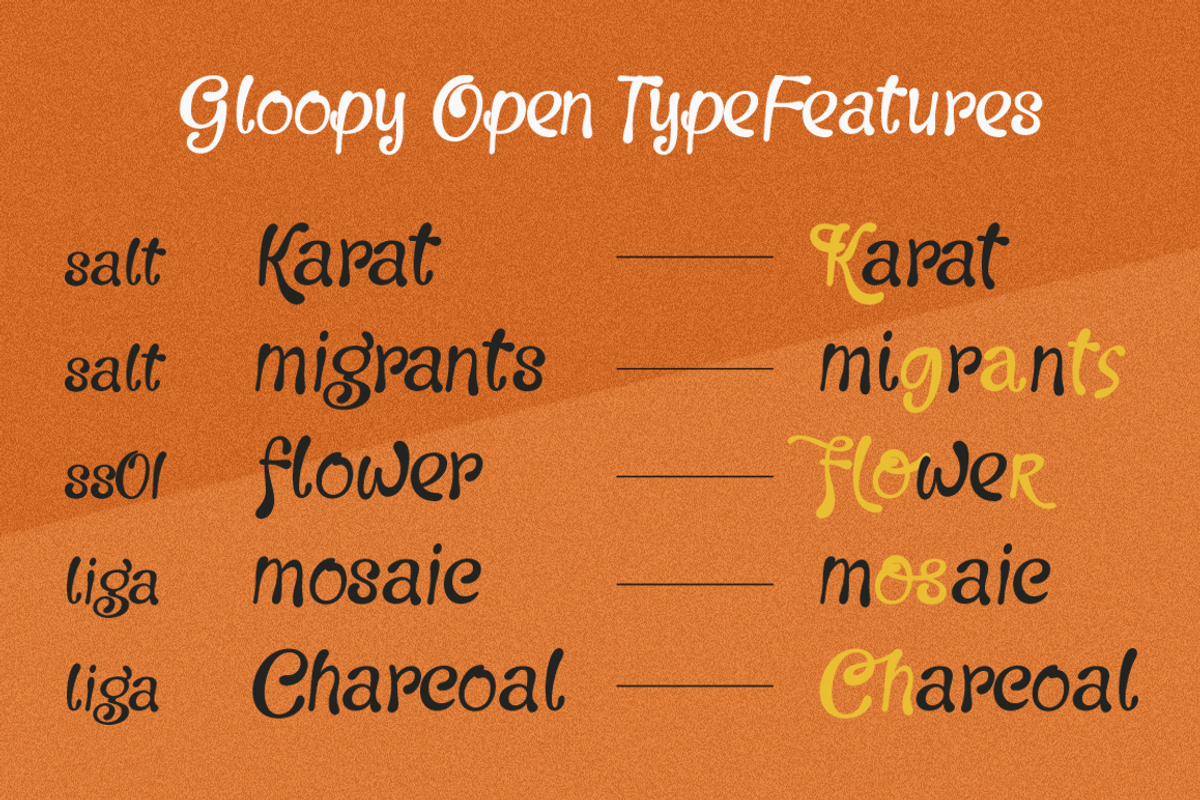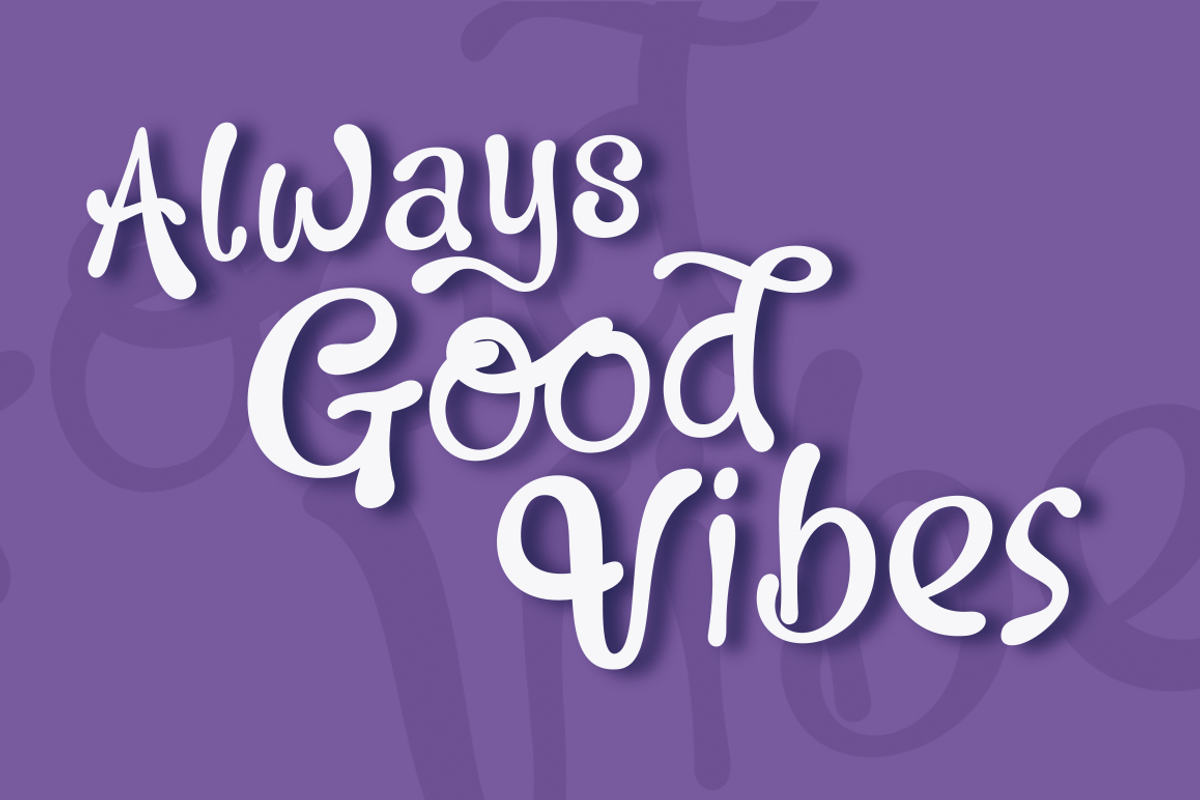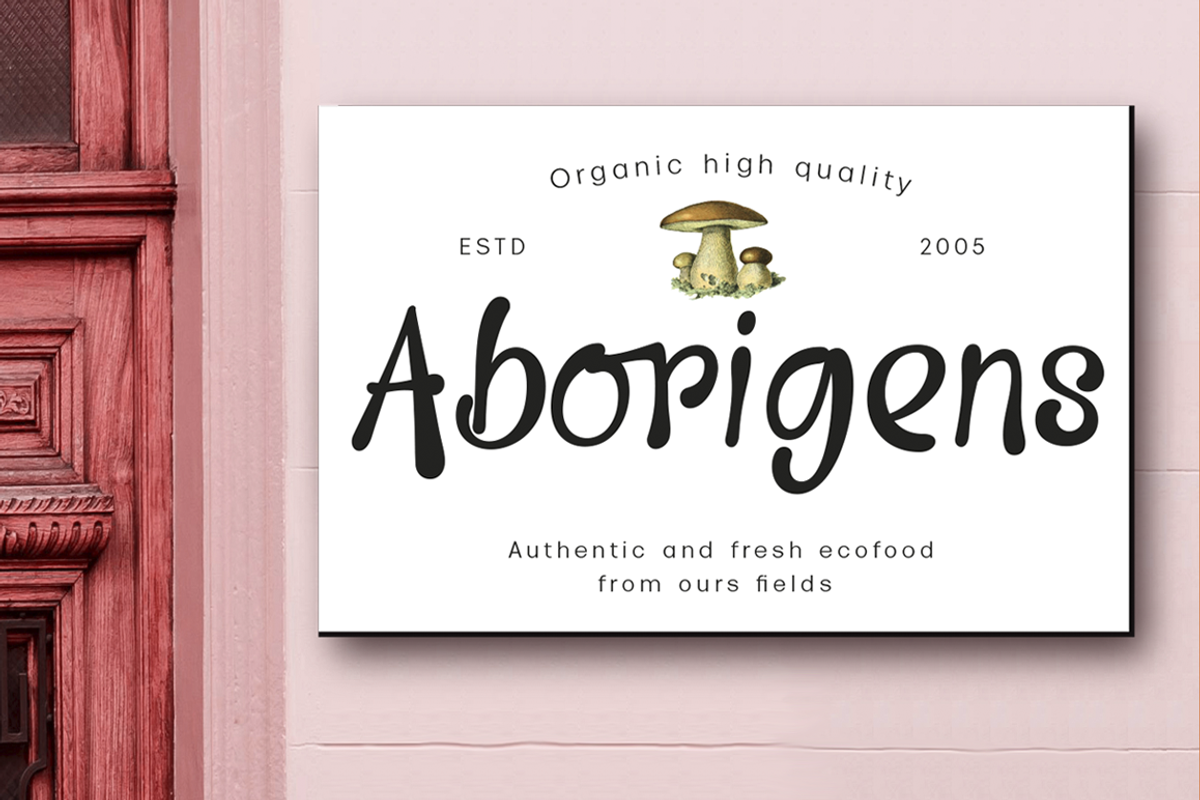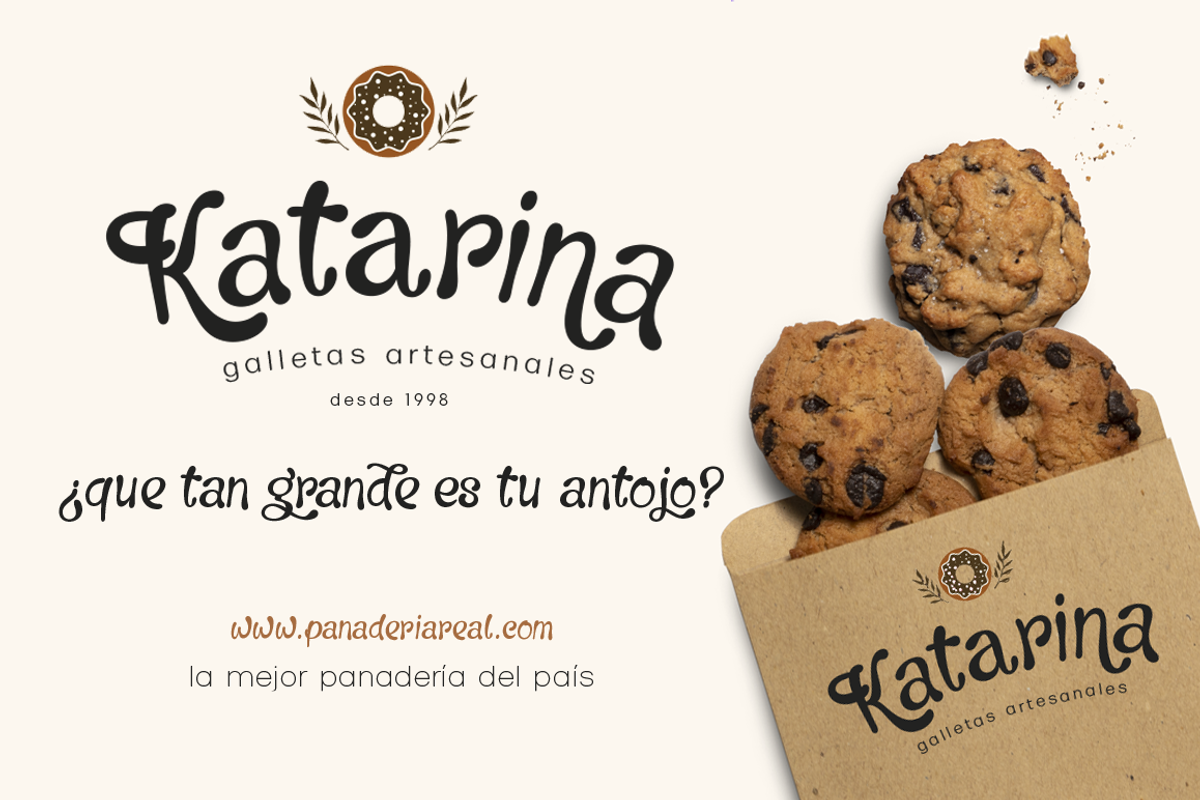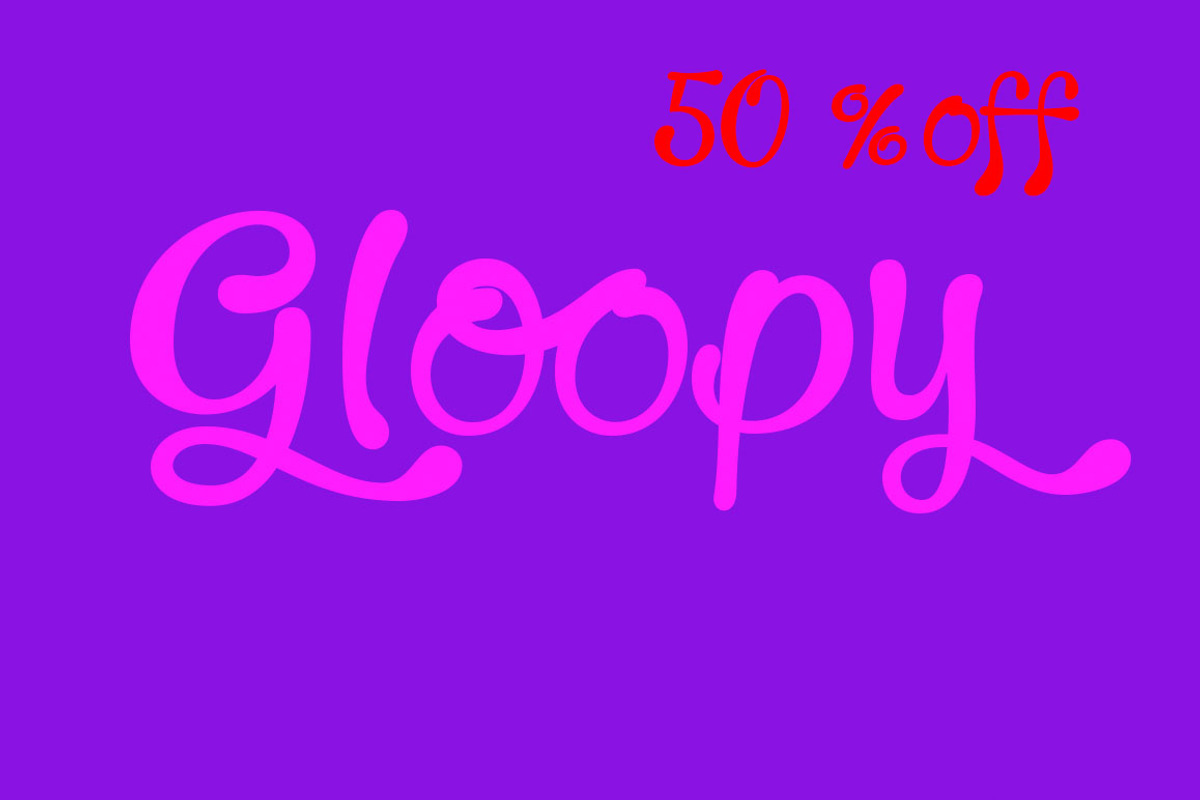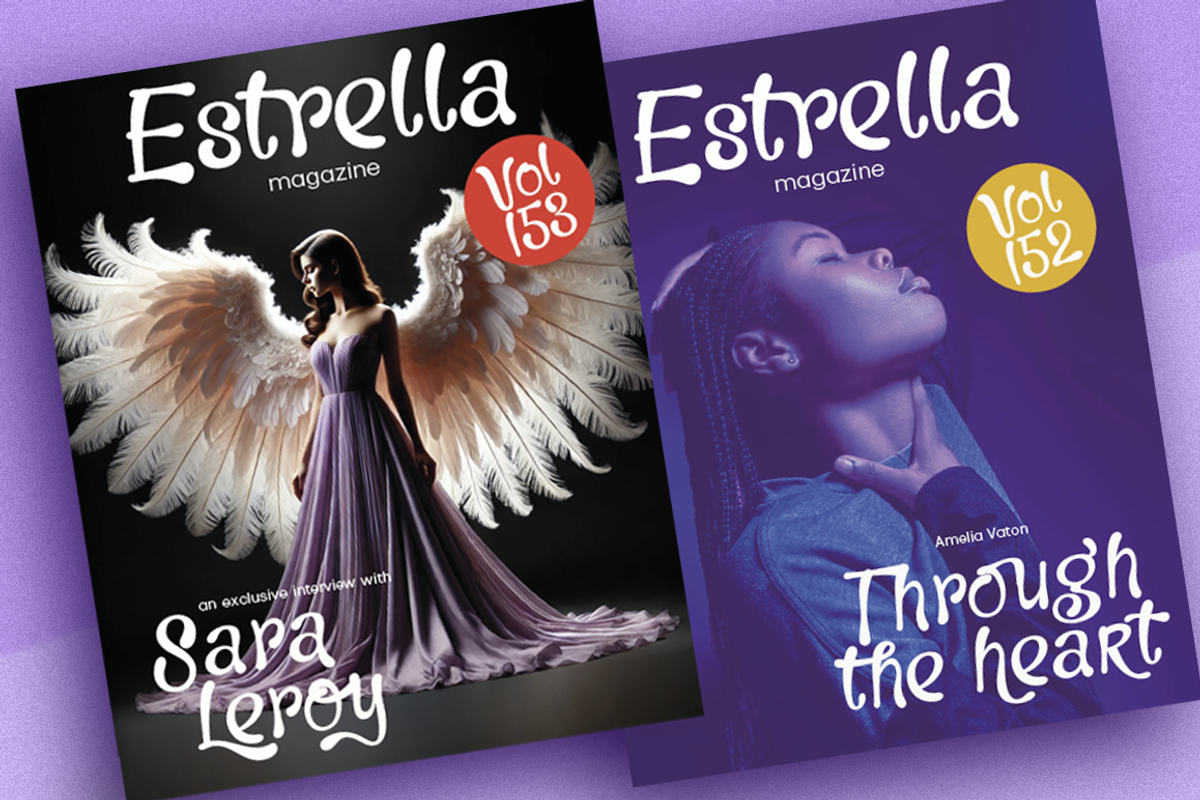
Gloopy
Gloopy is a handwritten font that looks like it was created with a brush dipped in fresh ink. What's most striking are those playful little touches at the end of each stroke, as if the ink had decided to throw its own party and spill out in a creative way. It's a typeface that radiates fun and spontaneity, perfect for giving a casual, laid-back feel to any project. The Open Type features include standard alternates, stylistic sets, and ligatures. All this makes the text lively and bouncy, without the monotony of obviously repeated letterforms. Take advantage of being able to choose an organic, flexible font with its connection alternatives that makes your text flow natural and better. Gloopy is the perfect choice for titles, children's books, magazines, logos, posters, fashion, restaurant menus, packaging and where you want it.